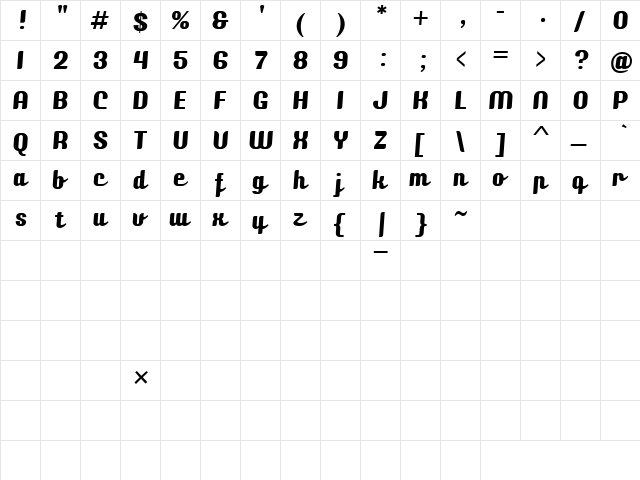
CK Racer Regular
Design Context for CK Racer Typeface
CK Racer is a composed and adaptable typeface that performs quietly and consistently across a wide range of design contexts.